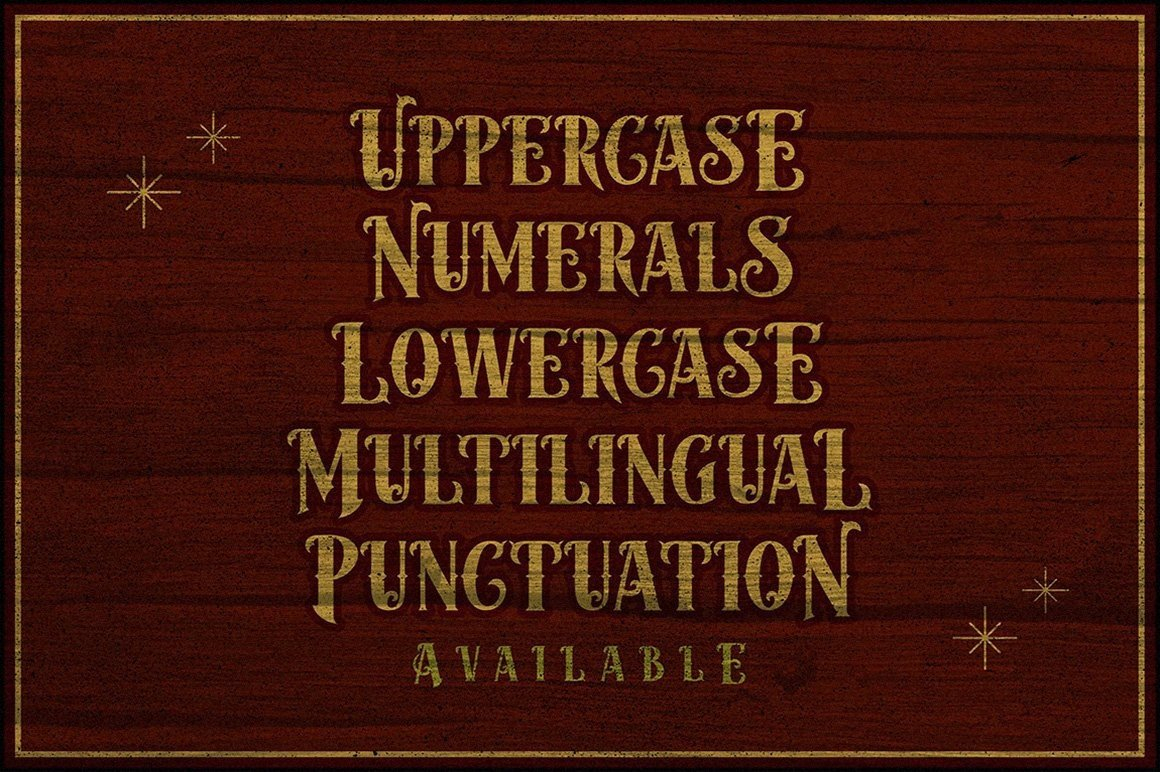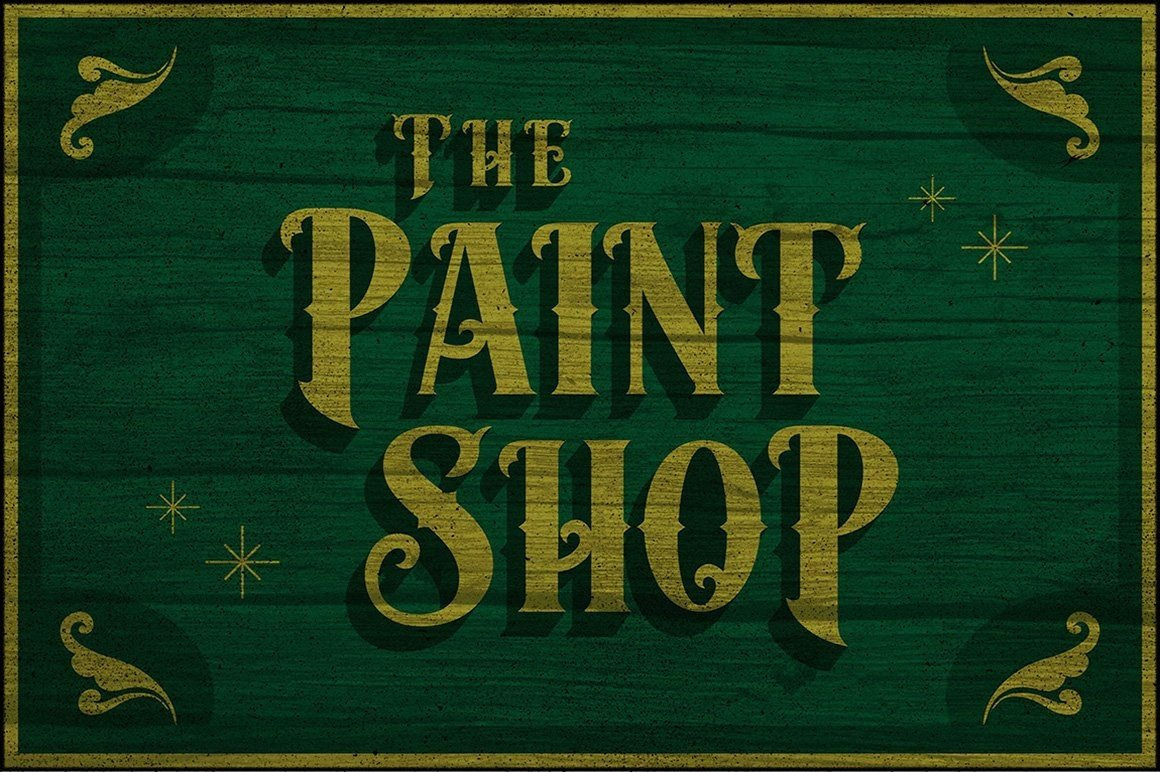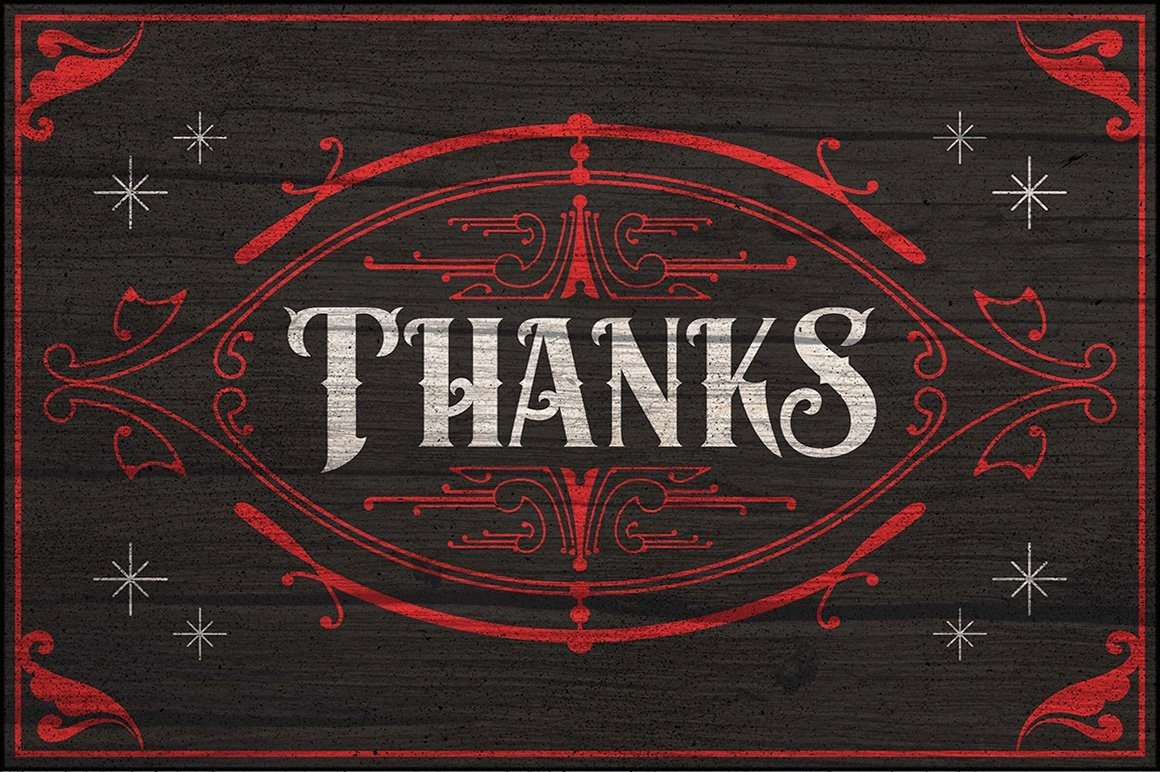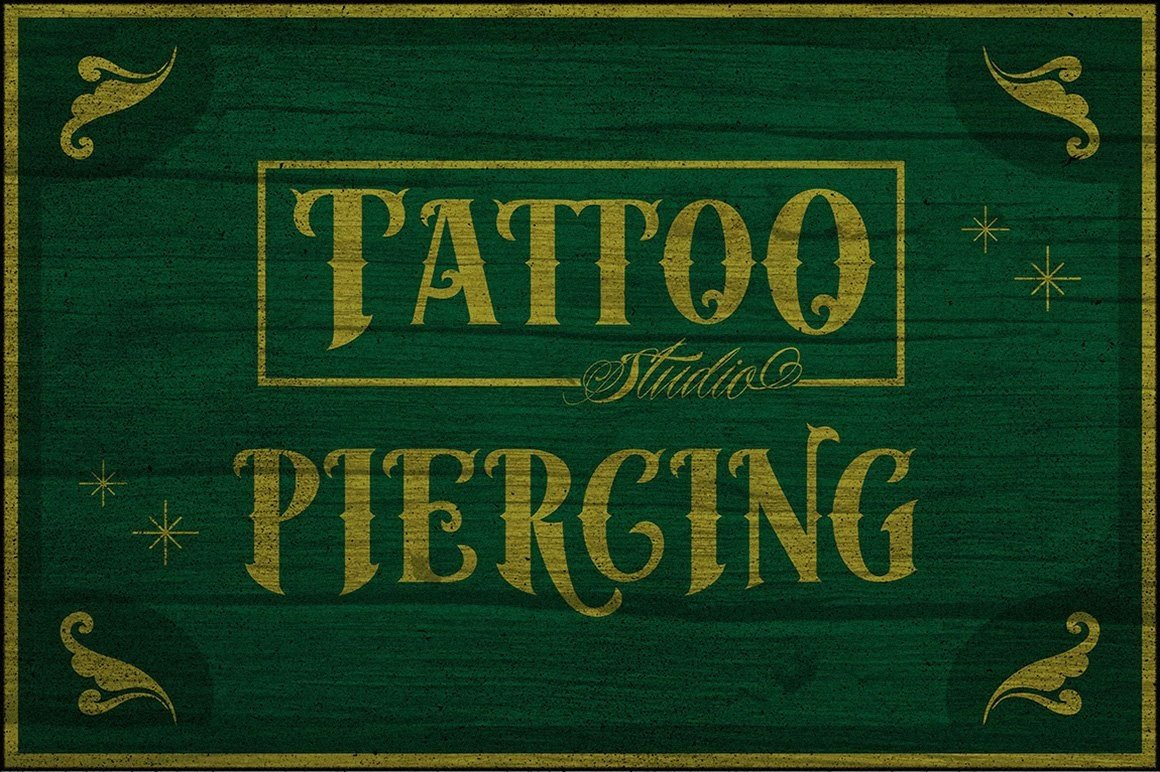
About Moyers Font
Moyers is a blackletter font that looks vintage, old-fashioned, and elegant. This font is good for vintage design,s Displays, t-shirts, logos, labels, posters, etc.